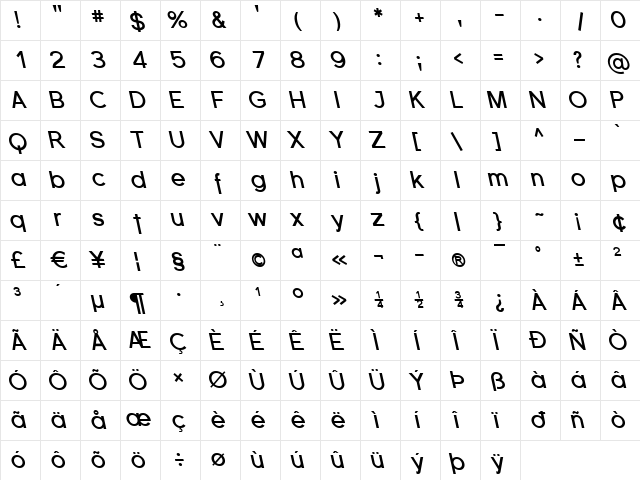
Florencesans Rev Bold Italic
Design Context for Florencesans Rev Typeface
Florencesans Rev offers clean, dependable letterforms without strong stylistic allegiance, making it a practical choice for designers who need flexibility. The dynamic lean of this cut emphasises speed and emphasis in any layout. The heavy weight commands attention and anchors typographic hierarchies.
Pro Tip: Use Florencesans Rev for emphasis, pull quotes, and subheadings where its slanted energy can add rhythm to the layout.